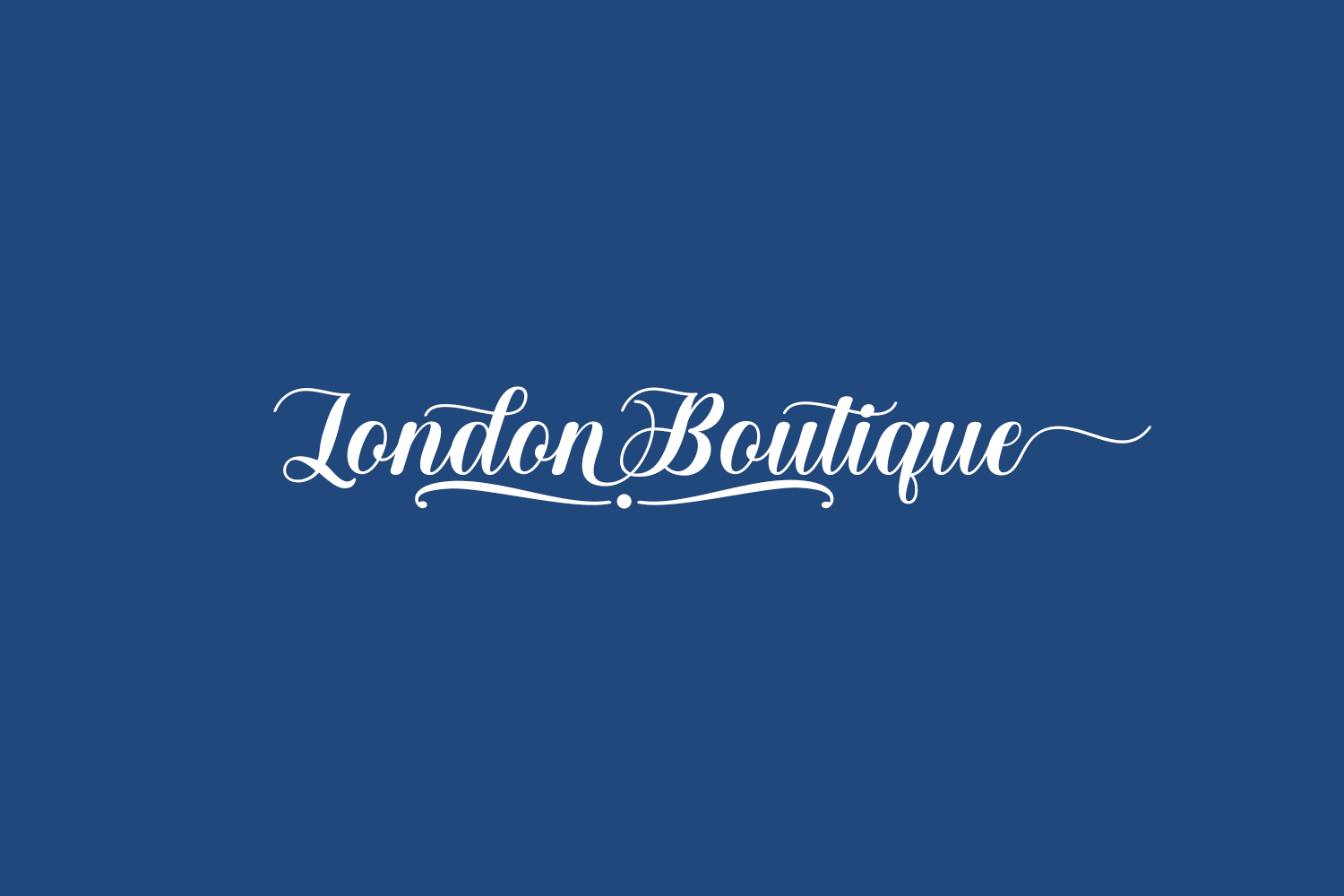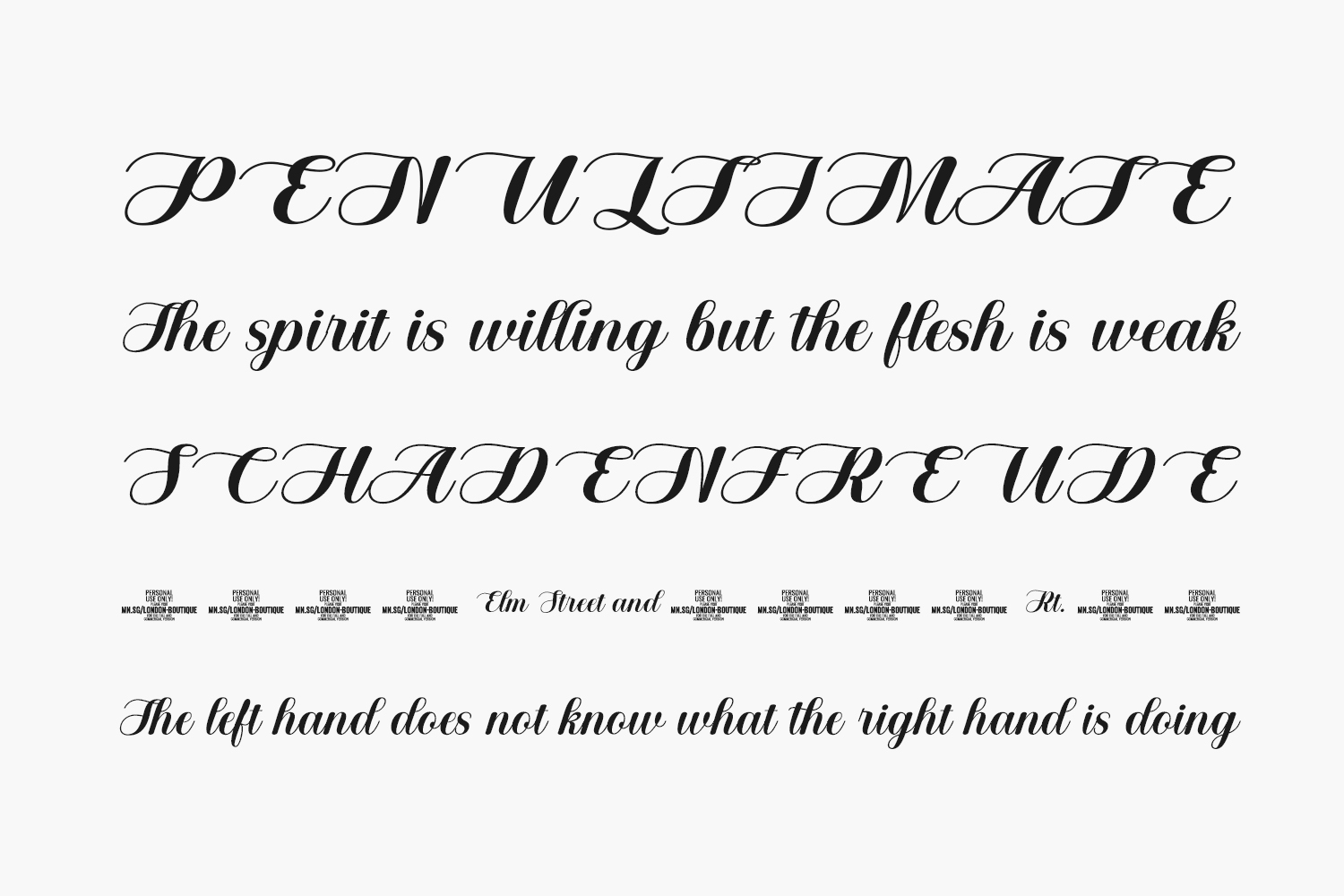
Script calligraphy is the epitome of elegance and sophistication, embodying the timeless art of handwritten lettering. London Boutique Free Font takes this classic style to new heights, evoking the spirit of a bygone era while remaining contemporary and relevant. With its intricate curves and flourishes, this font is perfect for adding a touch of glamour to any project, from wedding invitations to business cards. Each letter is meticulously crafted, showcasing the beauty of calligraphy in its purest form. Whether you’re a professional designer or simply someone who appreciates the beauty of typography, London Boutique Free Font is sure to leave a lasting impression.